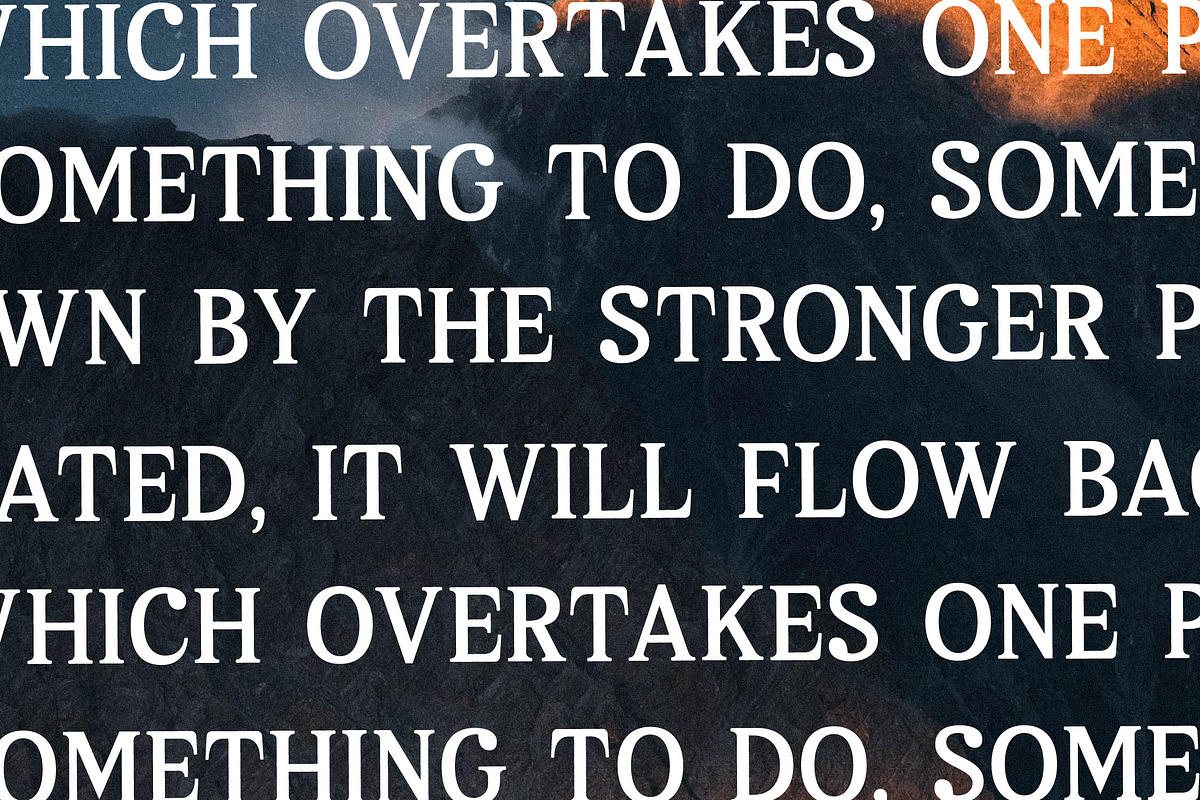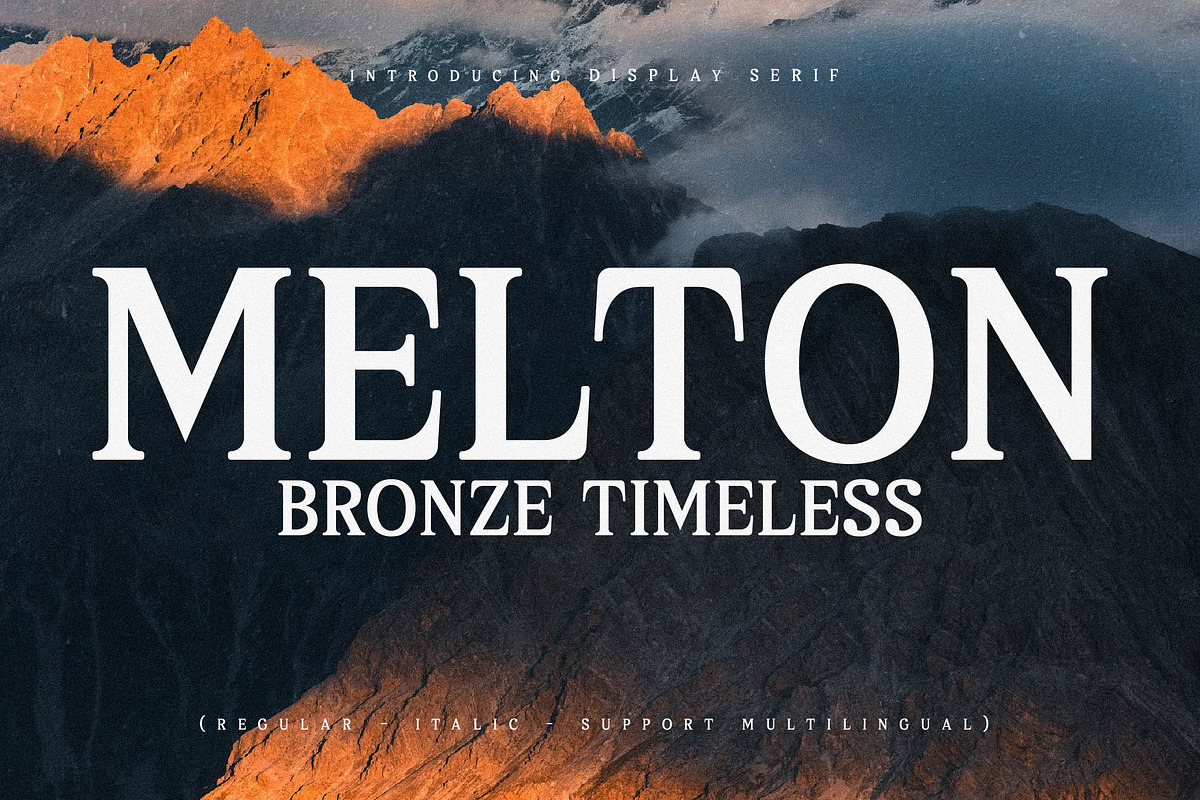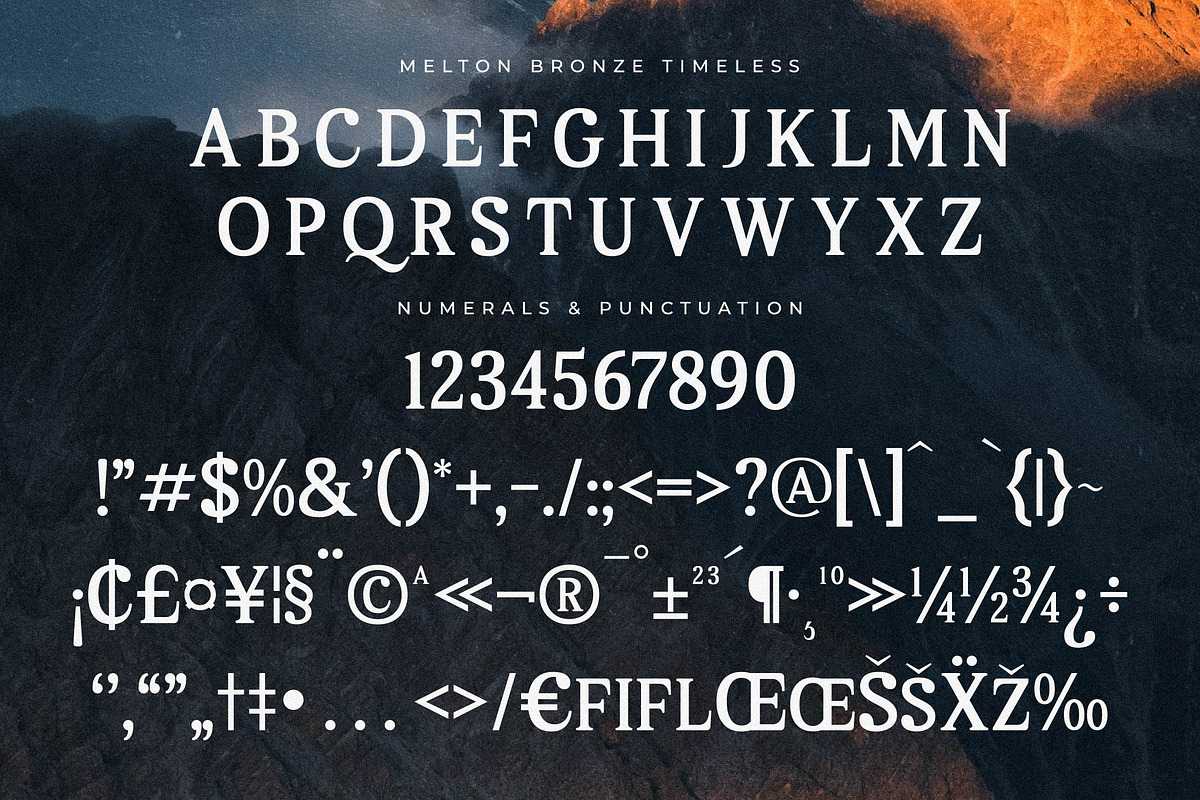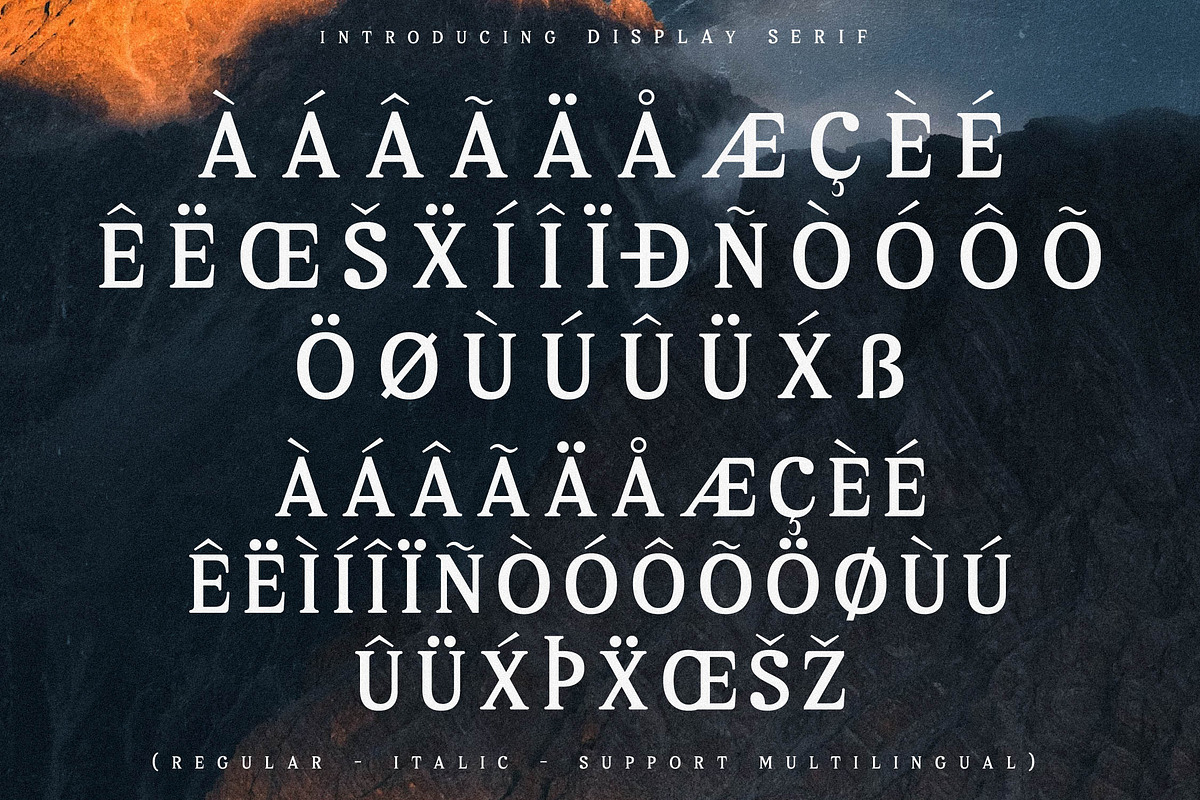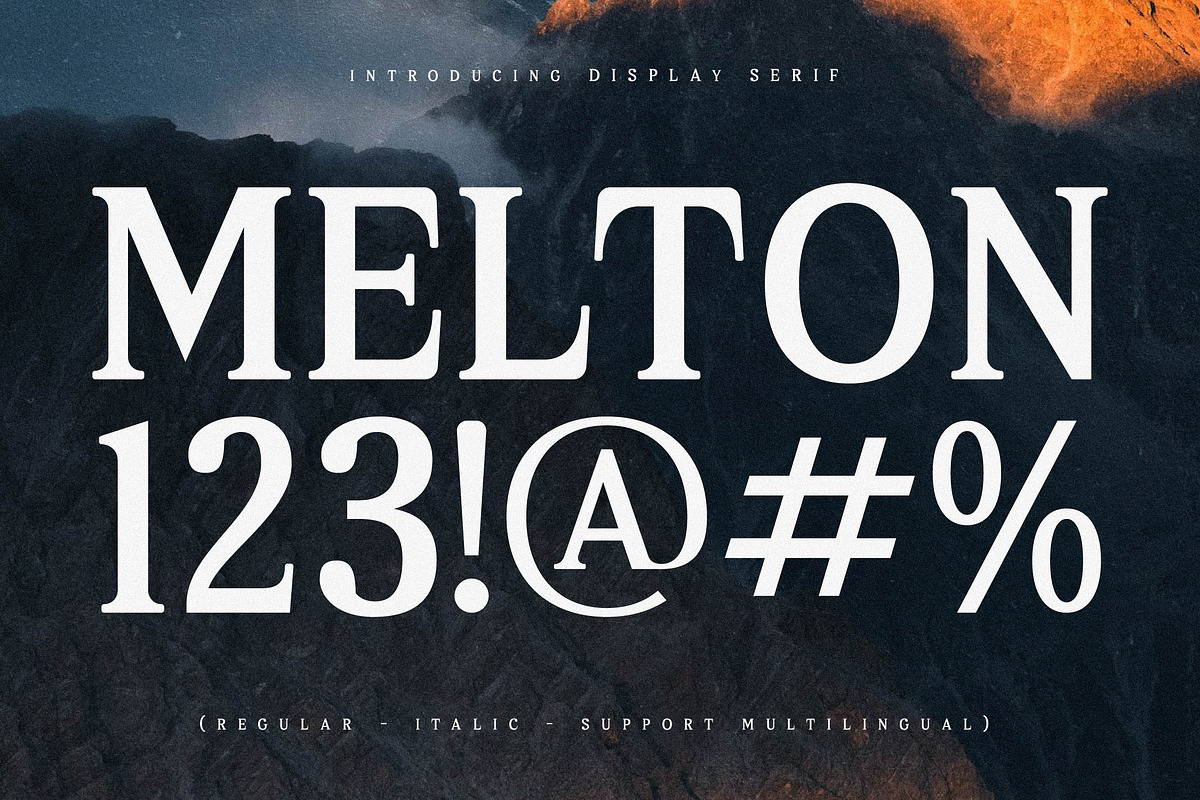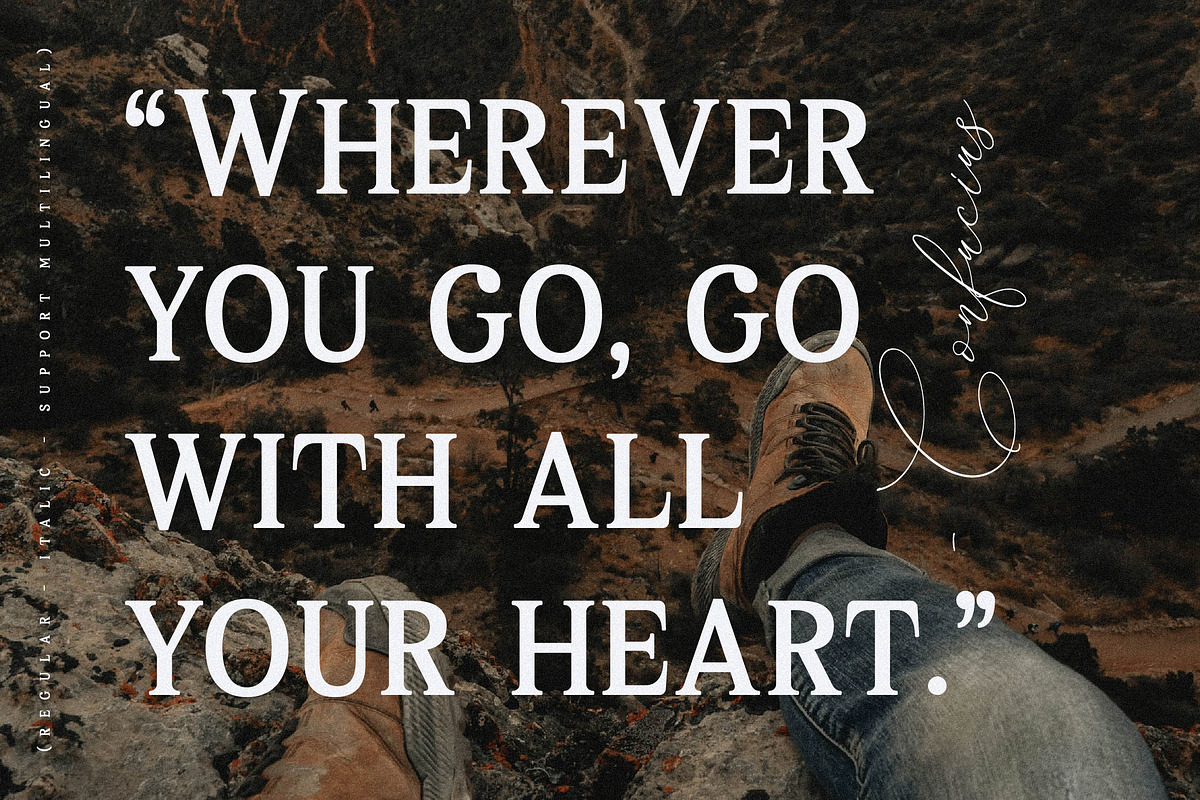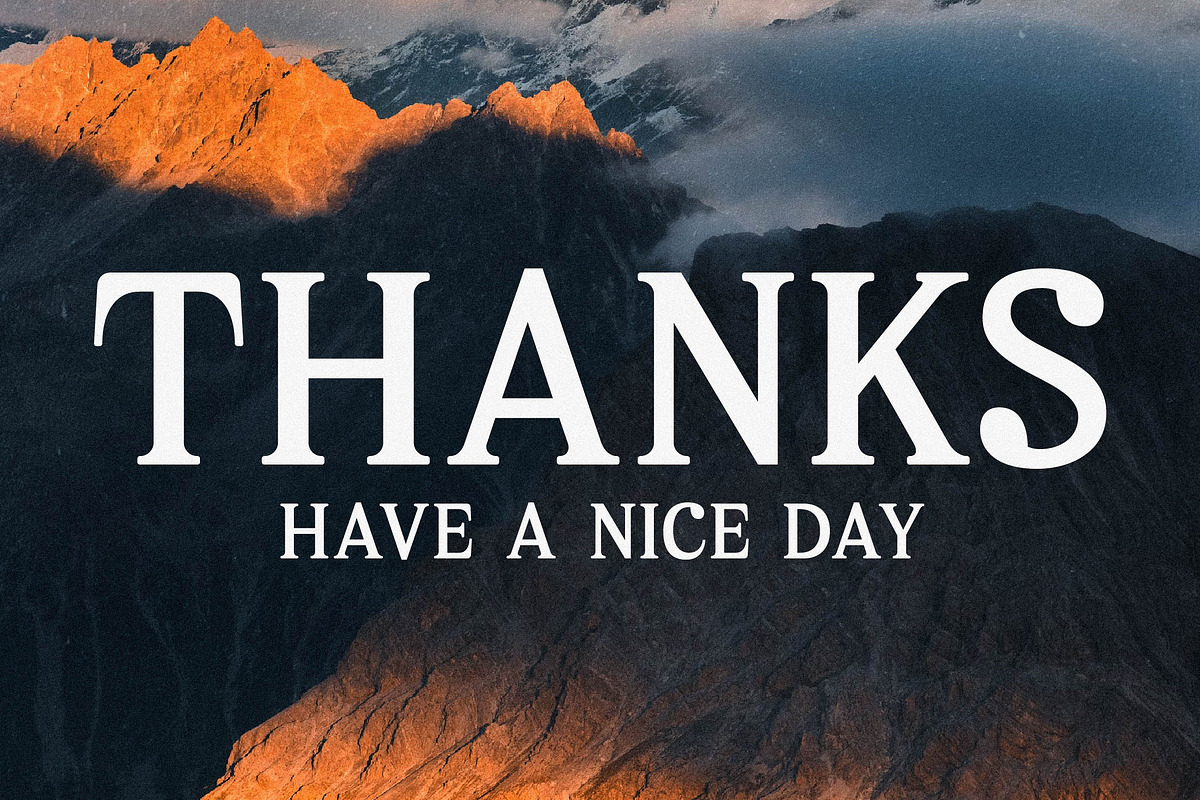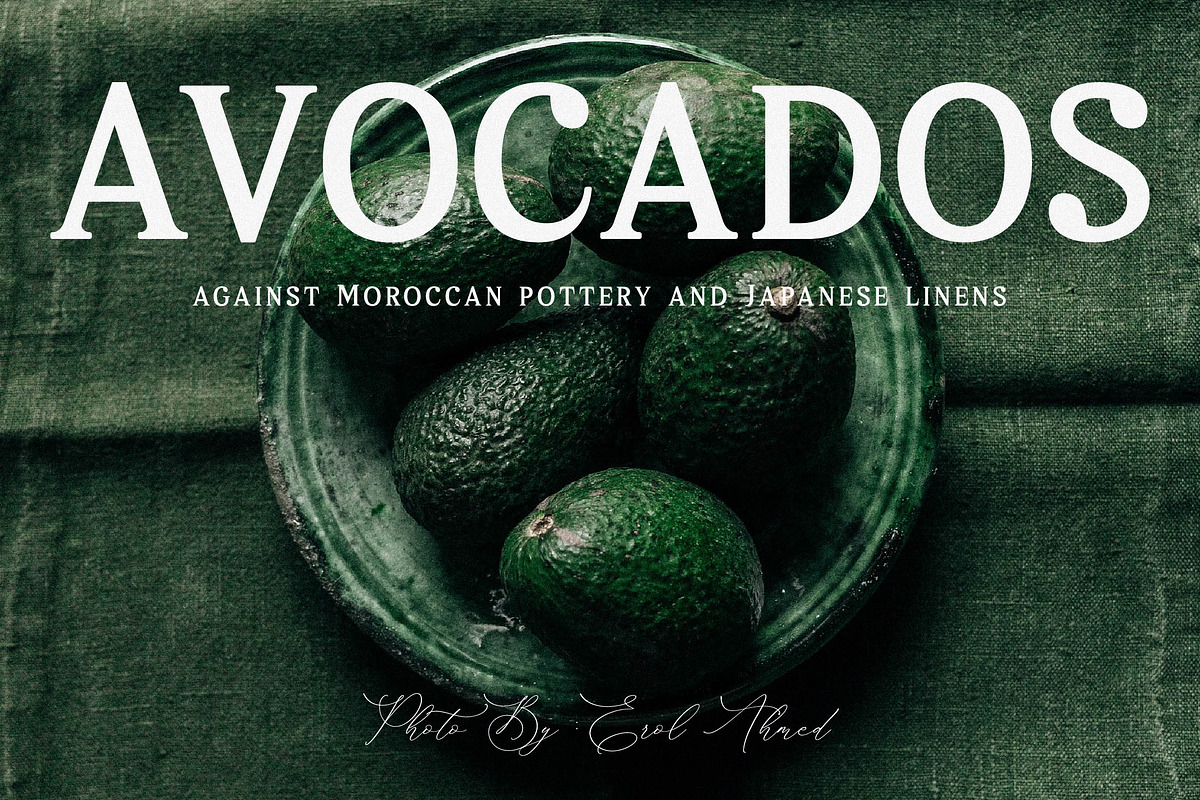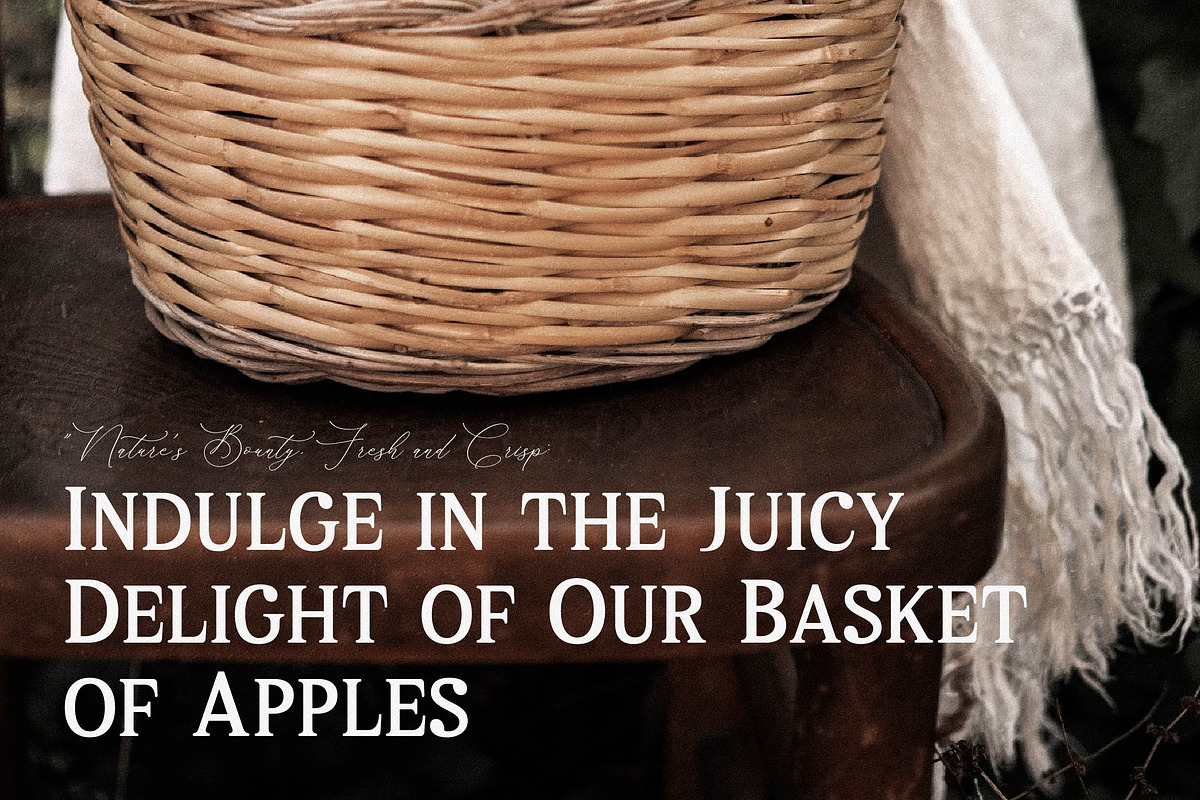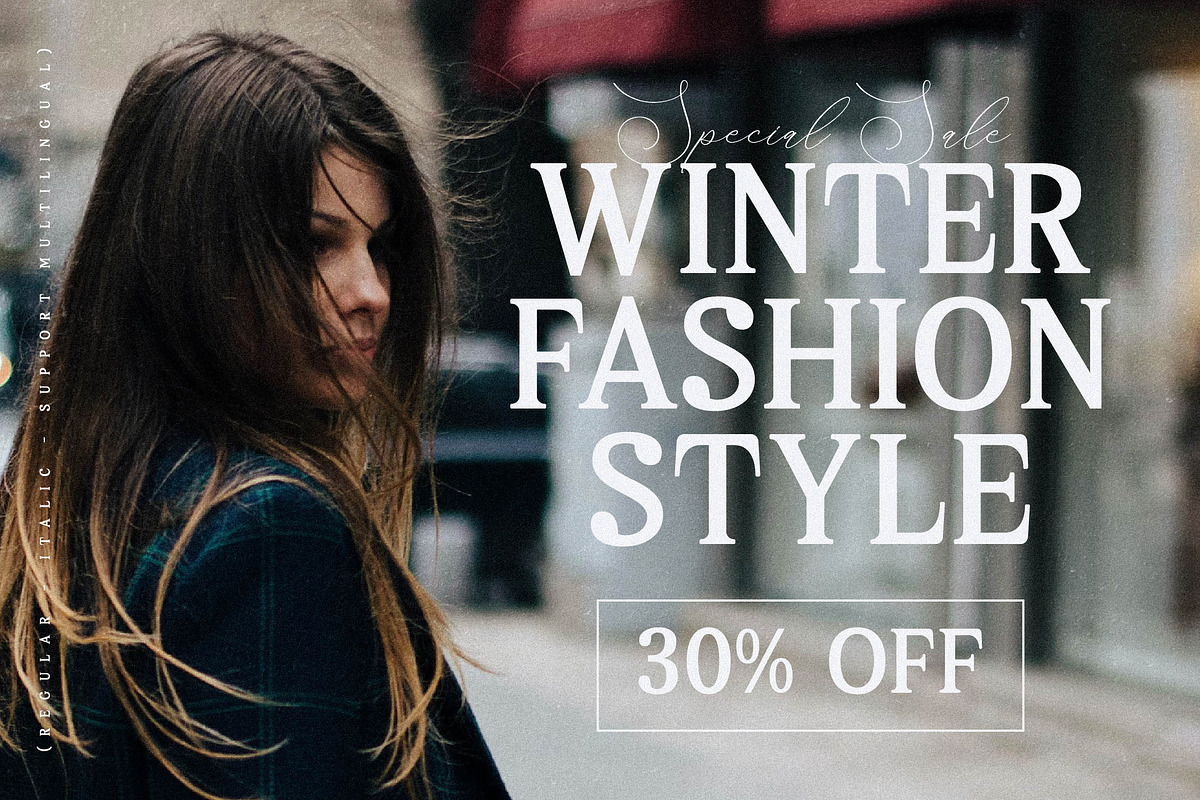
Melton Bronze Timeless Display Serif
Proudly present Melton Bronze Timeless Typeface , created by Storytype, A serif modern and classic typeface that has own unique style & modern look. This typeface is perfect for an elegant & luxury logo, book or movie title design, fashion brand, magazine, clothes, lettering, quotes, and so much more.